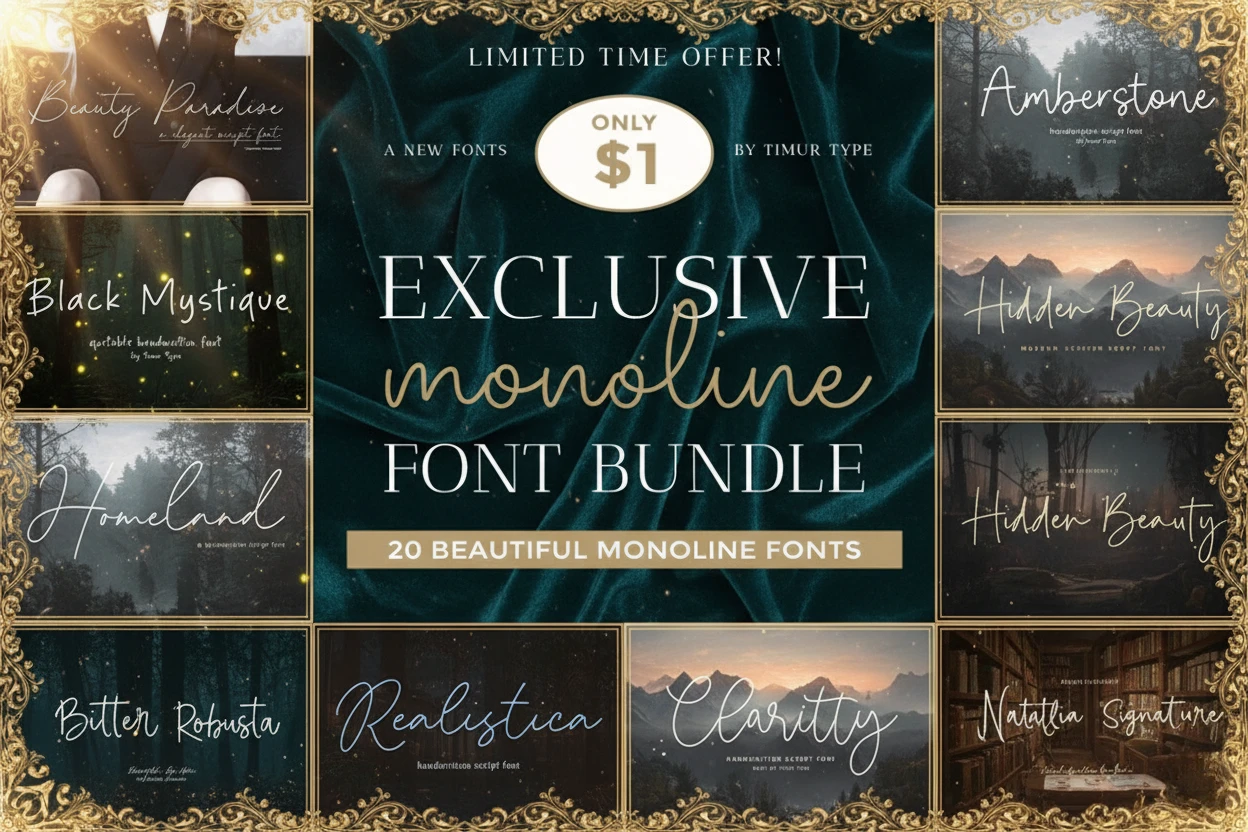
This Monoline Font Bundle includes 20 well-made monoline fonts with clean and uniform designs, perfect for today’s creative tasks. Each font has smooth, single-stroke lines, giving a minimalist and polished appearance to Cricut projects, sublimation designs, branding, packaging, and fashionable print materials. These monoline styles are easy to read and have a stylish handmade touch, making them great for logos, signatures, product labels, invites, and social media images. Providing a good balance of modern and expressive styles, this bundle gives you what you need for consistent, expert typography across designs. Savor a wide range of fonts to boost your creative output with clarity and appeal.